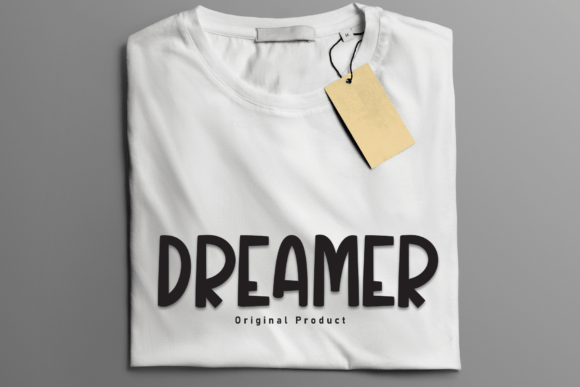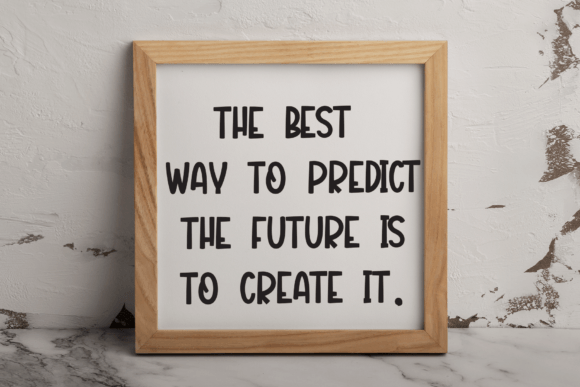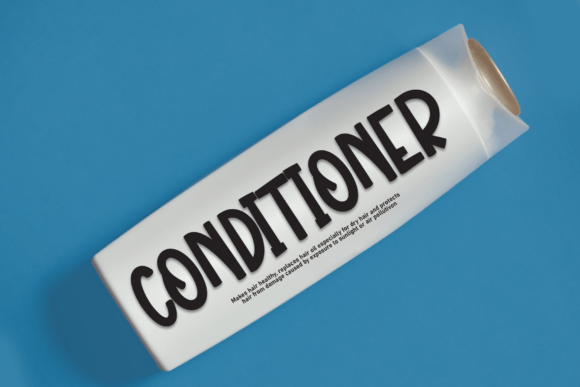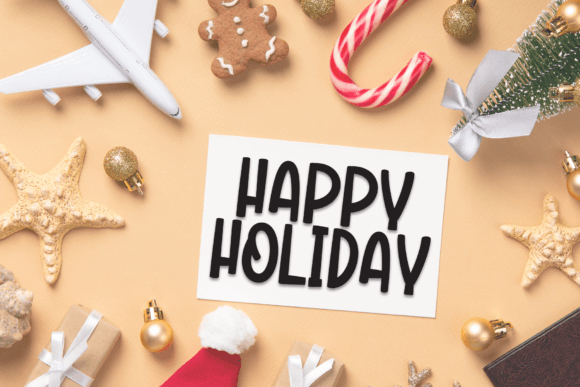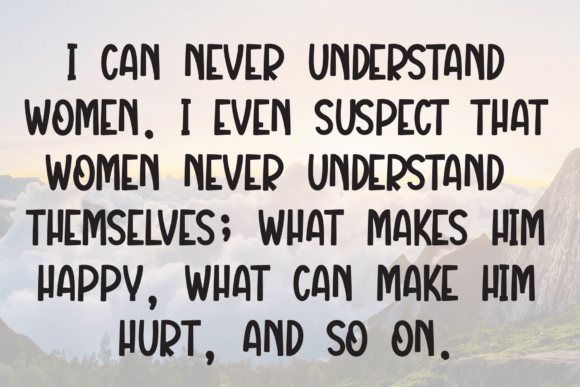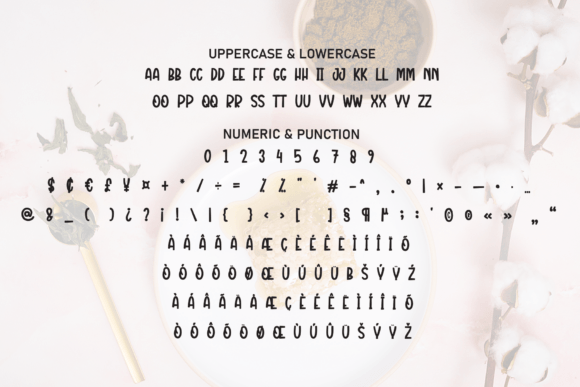
Introduction to Honey Magnolia Font Font
Fonts play a crucial role in design, and the Honey Magnolia Font font is a typeface that brings both character and versatility to any project. Whether you’re working on a branding project, a website, or a print design, the Honey Magnolia Font font offers a unique style that can elevate your work.
Introducing a charming and approachable handwritten display font that exudes warmth and friendliness.
Imbued with a sense of lighthearted enjoyment, this font brilliantly shines when used for crafting wedding invitations, greeting cards, or any design craving a playful twist Express your creativity and infuse a delightful touch to your artworks with this beautiful font.
Key Features of Honey Magnolia Font Font
Why Choose Honey Magnolia Font Font?
The Honey Magnolia Font font is more than just a typeface – it’s a design tool that helps you communicate your message with style and clarity. Its unique character set and versatile design make it suitable for a wide range of applications, from elegant invitations to bold headlines.
With its carefully crafted letterforms and balanced proportions, the Honey Magnolia Font font ensures readability and visual appeal across all mediums.
What makes Honey Magnolia Font font special?
The Honey Magnolia Font font stands out with its unique design, exceptional readability, and versatility across various design applications.